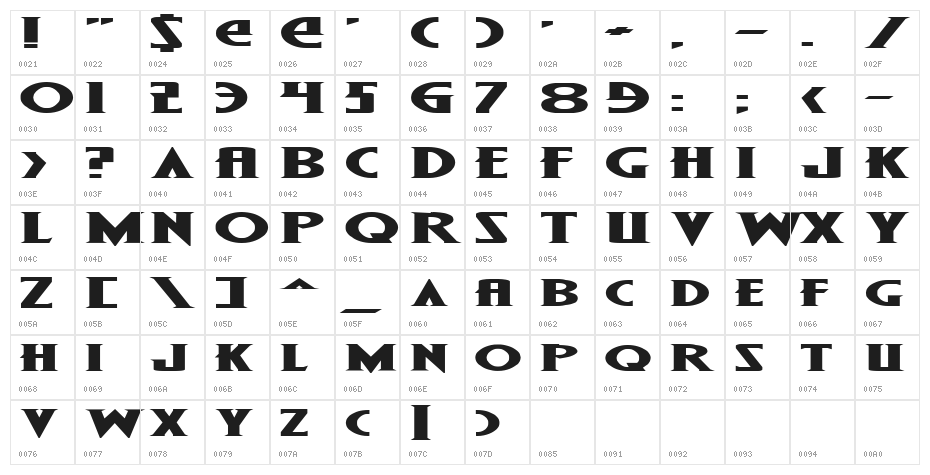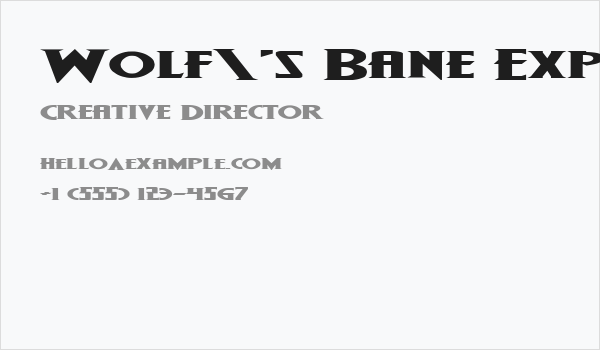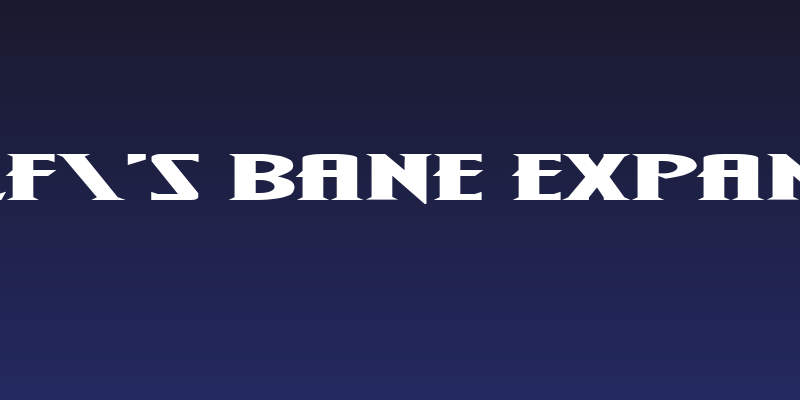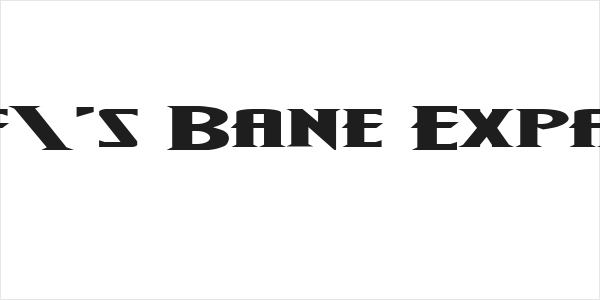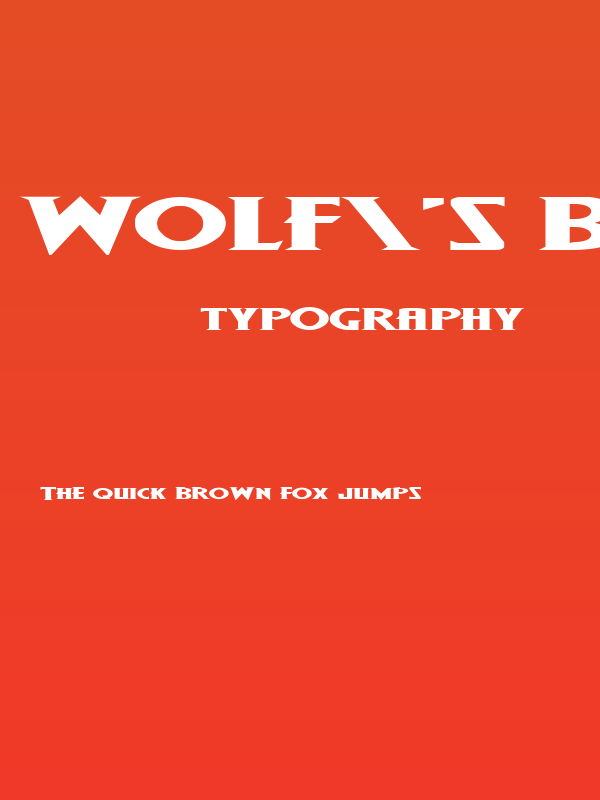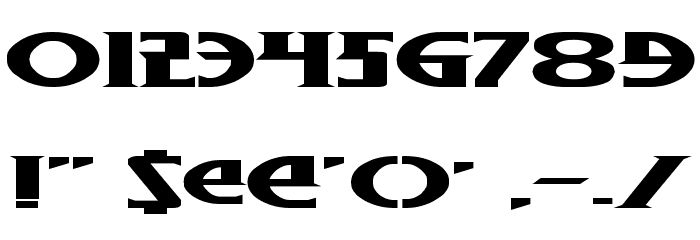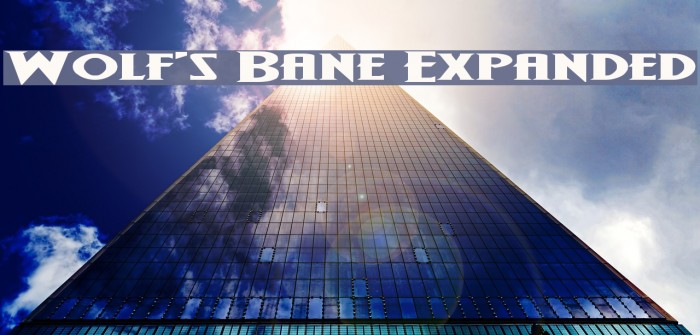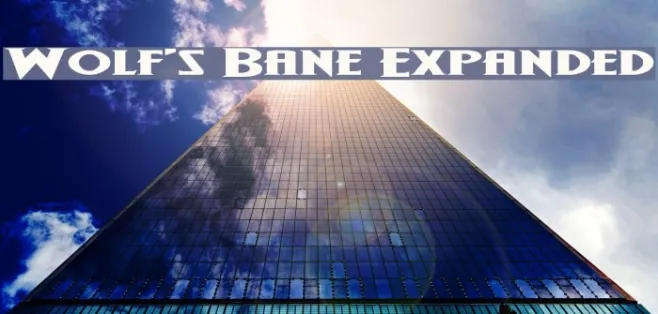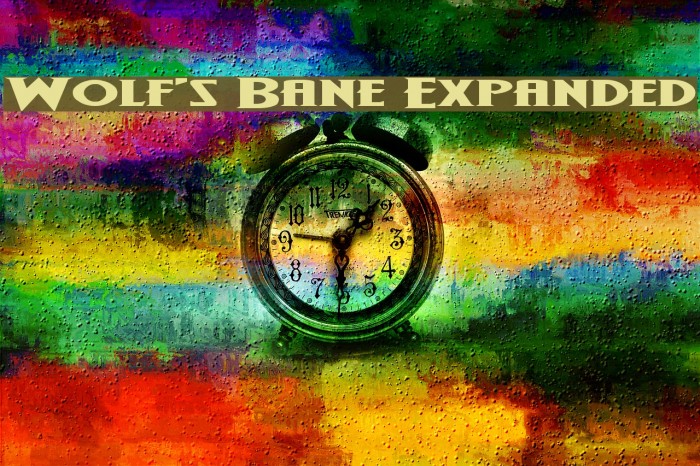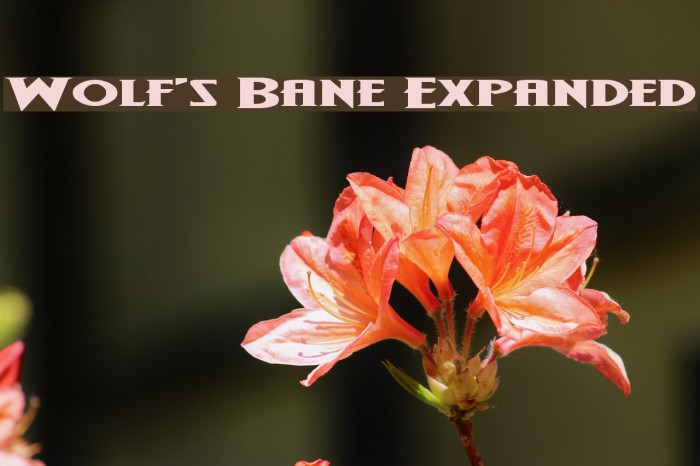
Wolf's Bane Expanded Font
Wolf's Bane Expanded Description
This font features a bold and striking design, characterized by its sharp, angular lines and dramatic flair. Each character is crafted with a sense of power and intensity, making it ideal for attention-grabbing headlines or titles. The uppercase letters exhibit a strong geometric influence, while the lowercase letters maintain a consistent style that complements the overall aesthetic. Numbers and special characters are designed with the same boldness, ensuring uniformity across all text elements. The font's unique style is reminiscent of gothic or medieval themes, adding a touch of mystery and intrigue to any project.
| Overall Style | Gothic, Dramatic |
| Proposed Projects | Ideal for use in fantasy-themed designs, movie posters, book covers, or any project requiring a bold, dramatic typeface. |